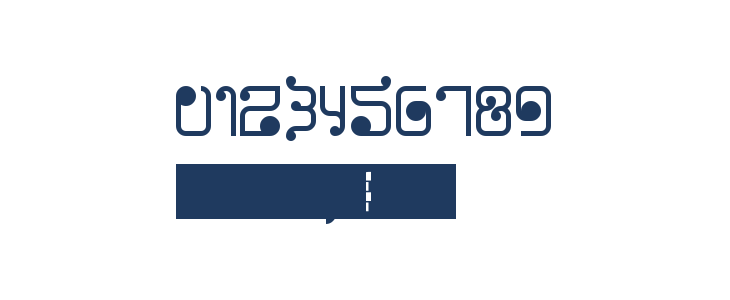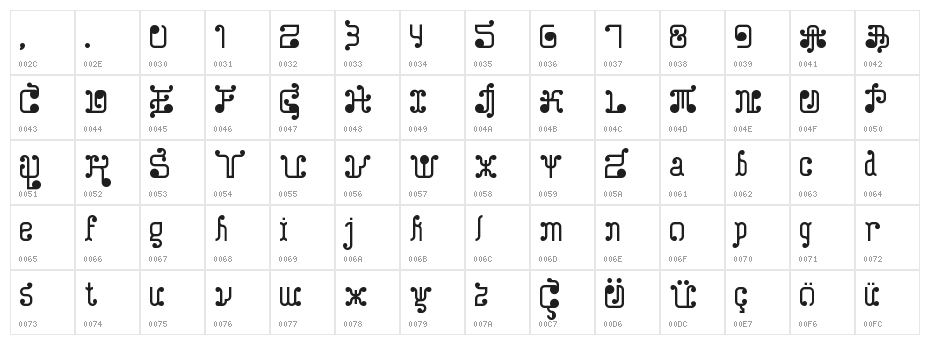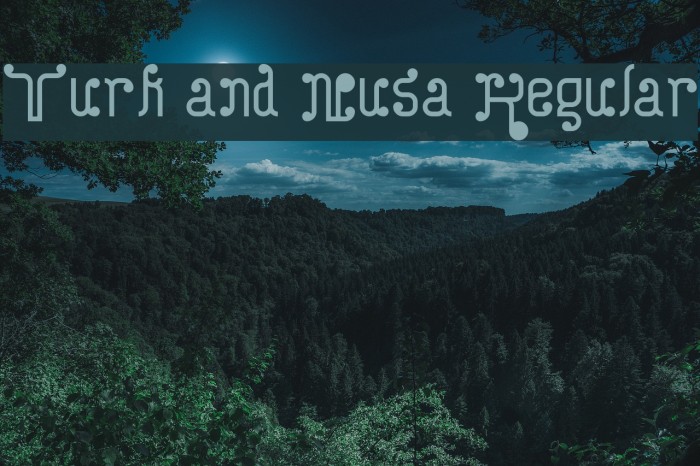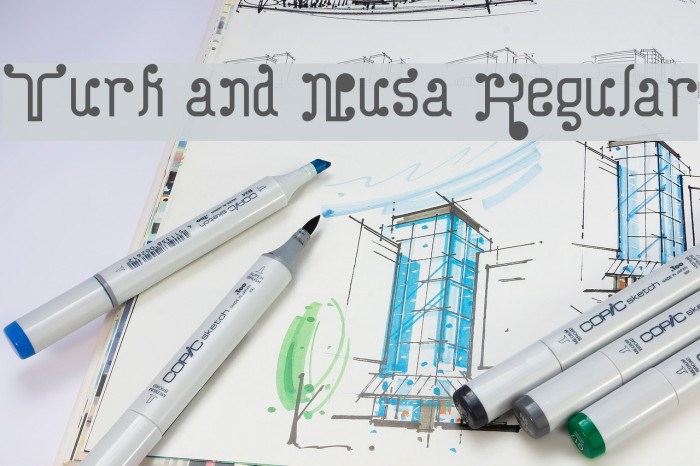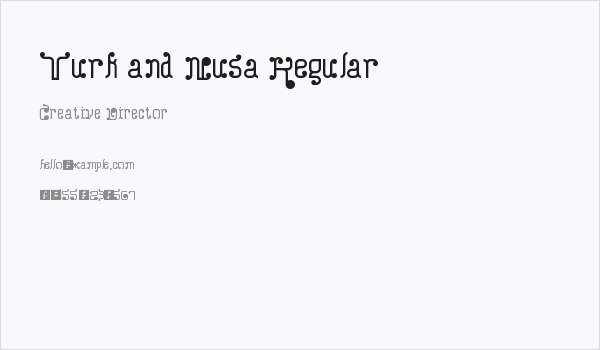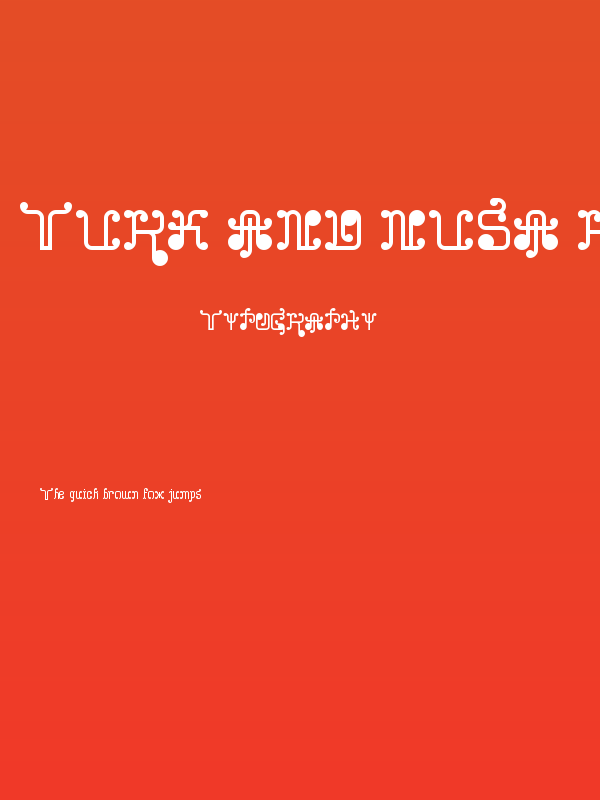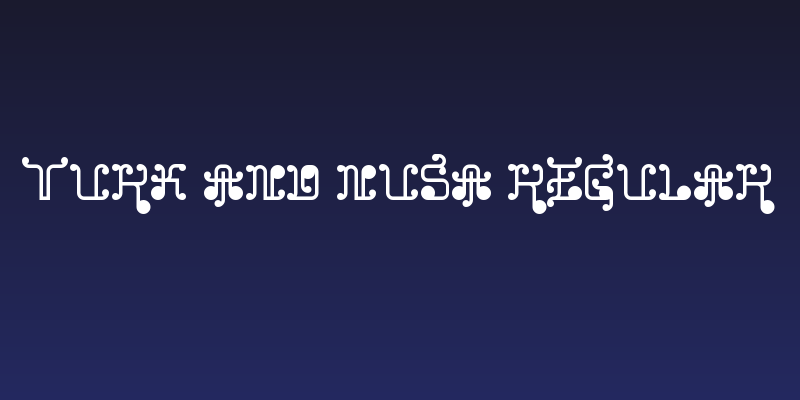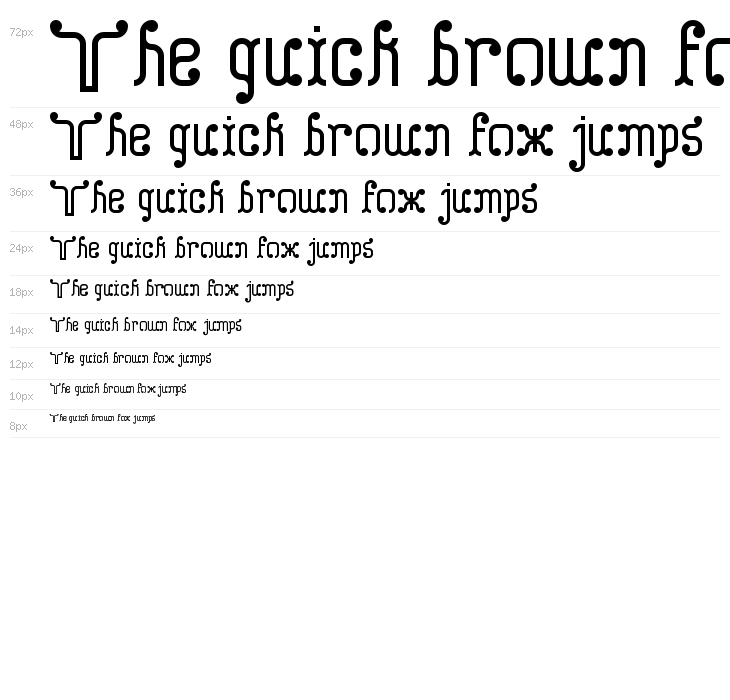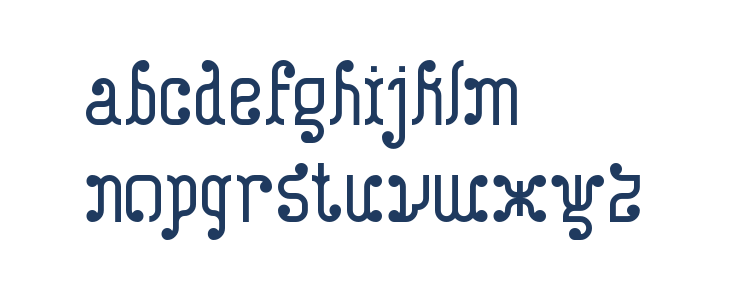
Turk and Nusa Regular Font
Turk and Nusa Regular Description
This font exhibits a unique and playful design with a distinct decorative style. Each character is crafted with rounded edges and circular embellishments, giving it a whimsical and artistic appearance. The uppercase letters are bold and feature intricate detailing, while the lowercase letters maintain a consistent style with slightly less ornamentation. Numbers and special characters follow the same decorative theme, ensuring a cohesive look across all glyphs. The font's overall design is eye-catching and ideal for creative projects that require a touch of flair.
Proposed ProjectsIdeal for creative projects such as posters, invitations, and branding materials that require a unique and artistic touch.